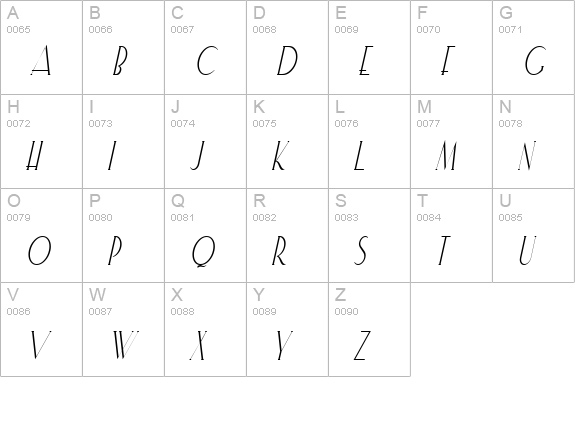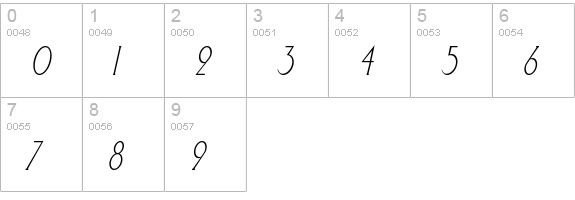
ElisiaCondensed Italic Font Details
ElisiaCondensed Italic is a distinctive, italic variant in the ElisiaCondensed typeface family \xE2\x80\x94 well suited to design and typography projects.
ElisiaCondensed Italic font is a sleek and modern typeface that exudes elegance and sophistication. Its stylish slanted letters add a touch of flair to any design project, making it perfect for creating eye-catching titles, headings, and logos. The condensed design allows for maximum impact in a minimal space, making it ideal for projects where space is limited. What sets ElisiaCondensed Italic font apart is not only its stunning design, but also the fact that it is completely free to download. That's right - you can access this beautiful font at no cost on FontsMarket.com. Whether you're a professional designer looking to elevate your work or a hobbyist seeking to add a touch of class to your projects, ElisiaCondensed Italic font is the perfect choice. Download it today and see how it can enhance your creations!